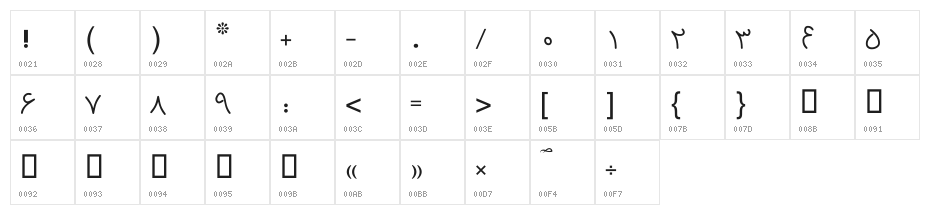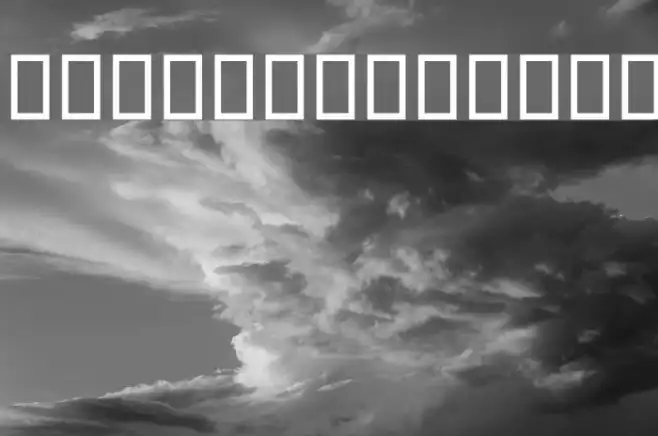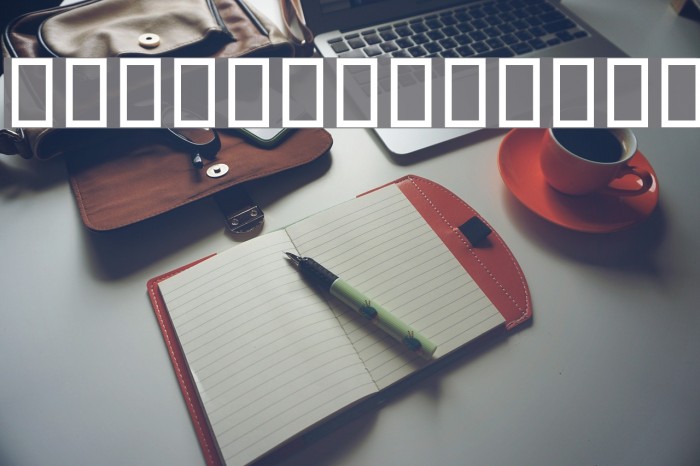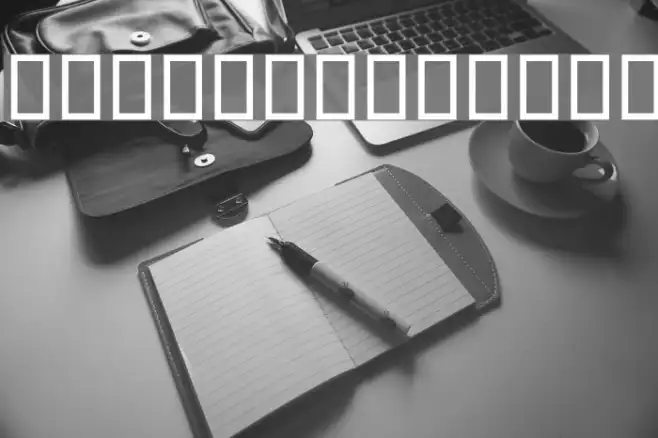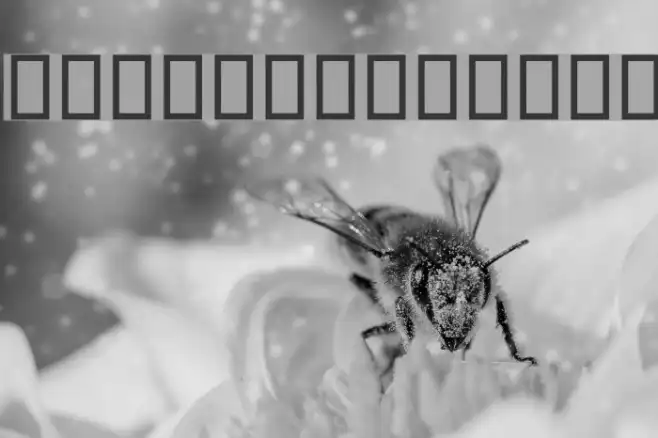
Destkhat III Font
Destkhat III Description
This font features a unique and artistic style, characterized by its flowing and cursive-like strokes. The letters are elegantly curved, giving a sense of movement and fluidity. The numbers maintain a consistent style with the letters, featuring similar curves and a playful appearance. Special characters are crafted with the same attention to detail, ensuring a cohesive look throughout. This font is ideal for projects that require a touch of creativity and elegance, such as invitations, greeting cards, or artistic posters.
| Overall Style | Artistic |
| Use Case | Logos, Artistic projects, Invitations |
| Proposed Projects | Ideal for invitations, greeting cards, artistic posters, and creative branding. |